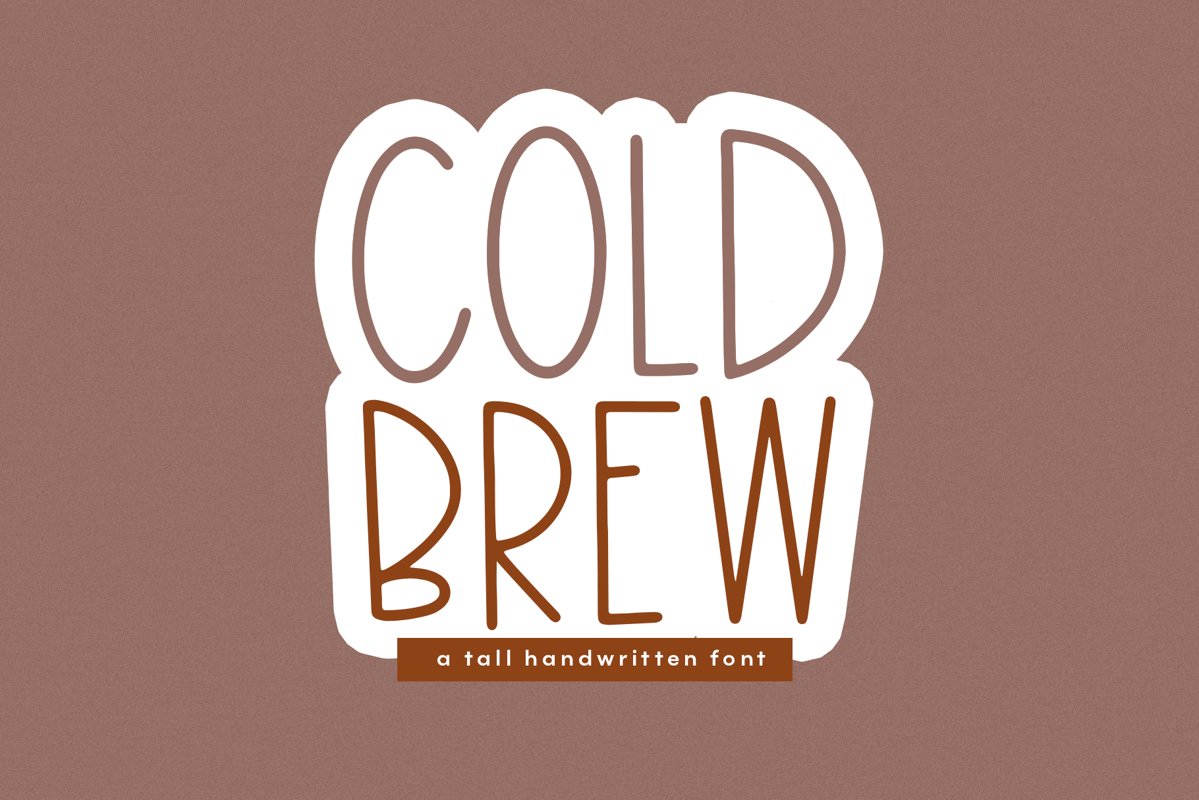
Cold Brew - A Thin & Tall Handwritten Font
Cold Brew is a handwritten font with a thin look & tall letters.
This font is perfect for quotes, headings, blogs, logos, invitations and more!